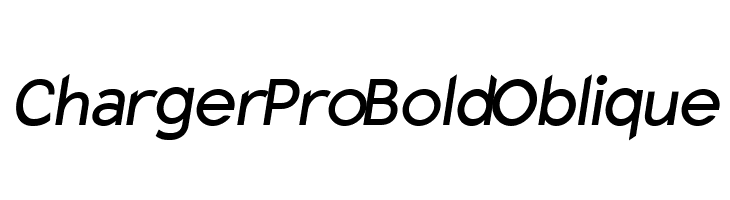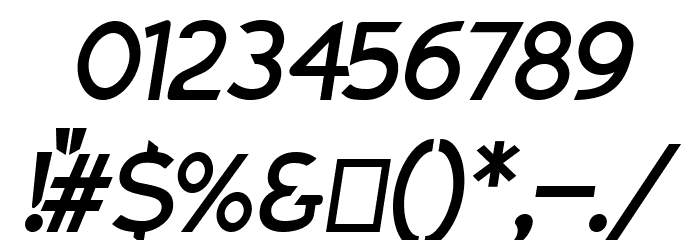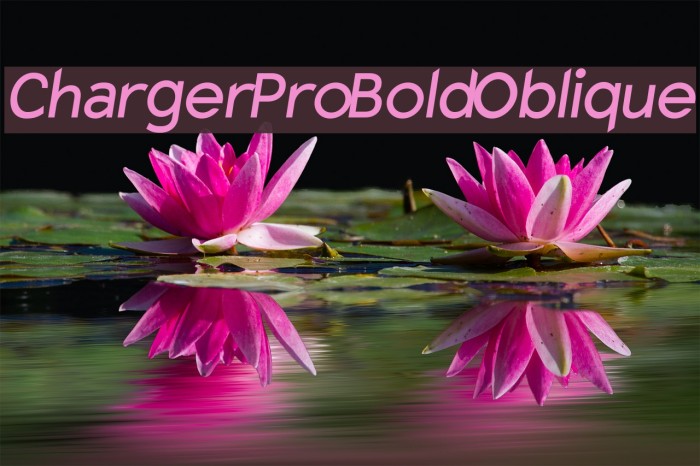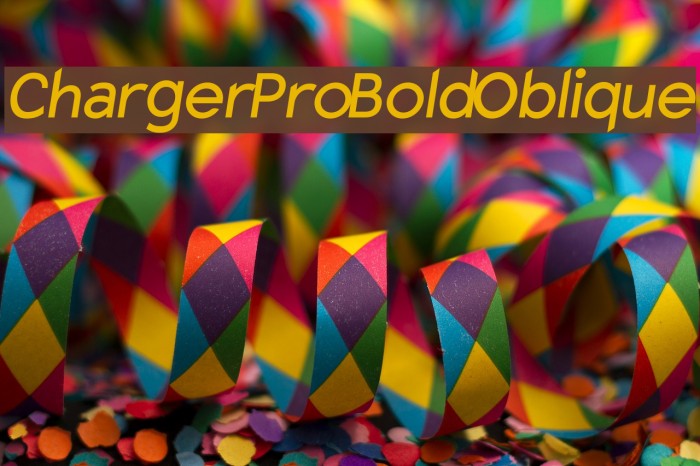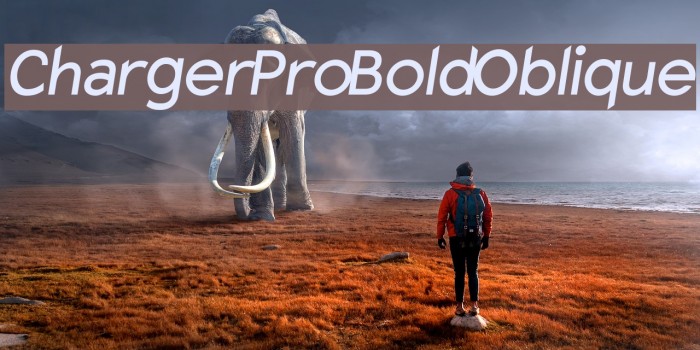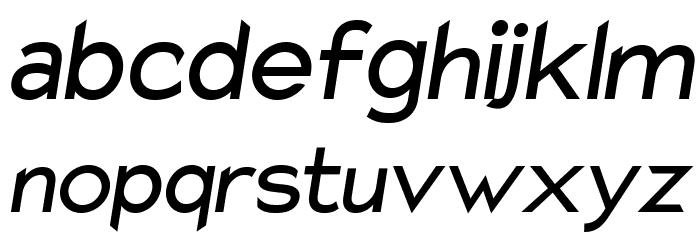
Charger Pro Bold Oblique Font
Charger Pro Bold Oblique Description
This font features a bold and oblique style, characterized by its strong and dynamic appearance. The letters are slightly slanted, giving a sense of motion and energy. The strokes are thick and consistent, providing a robust and impactful look. The characters are well-defined with smooth curves and sharp edges, making them highly legible. The font maintains a modern aesthetic, suitable for contemporary design projects. Its bold nature makes it ideal for attention-grabbing headlines and titles. The spacing between characters is normal, ensuring readability while maintaining a compact appearance.
A bold, oblique font with a modern and dynamic style from Uncategorized fonts.
- Proposed Projects: Ideal for branding, advertising, headlines, posters, and digital media where a strong, modern impact is desired.